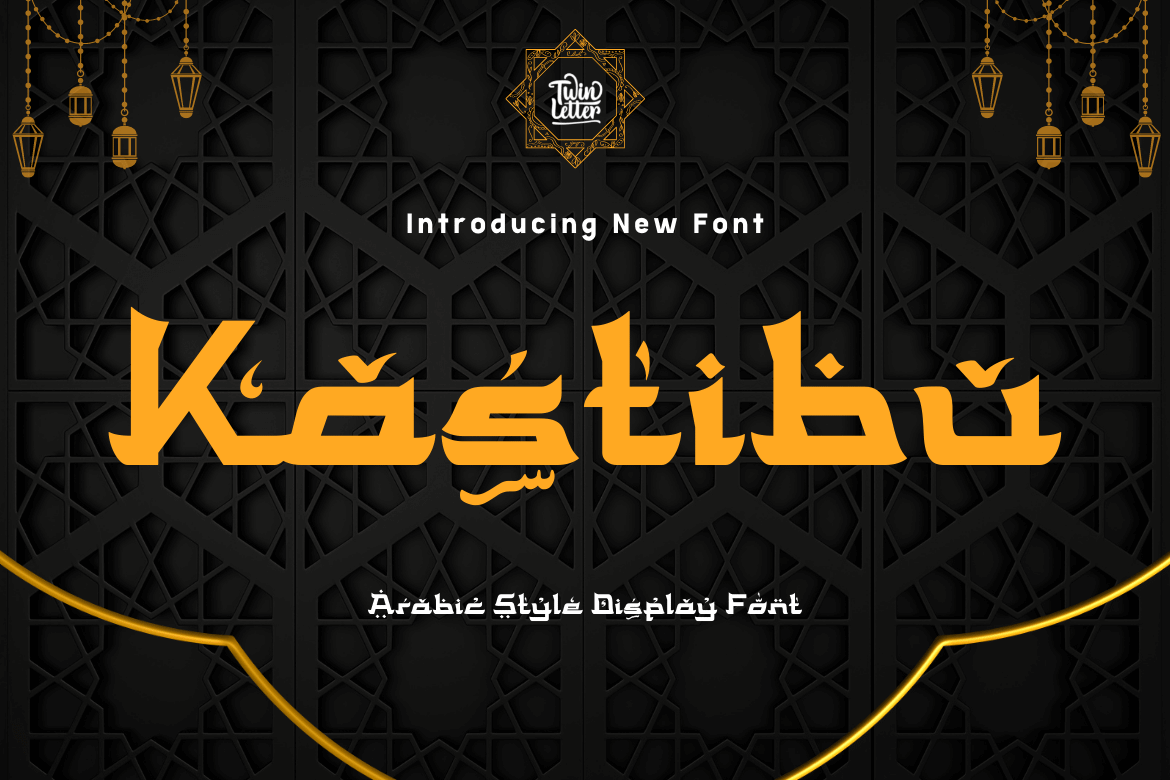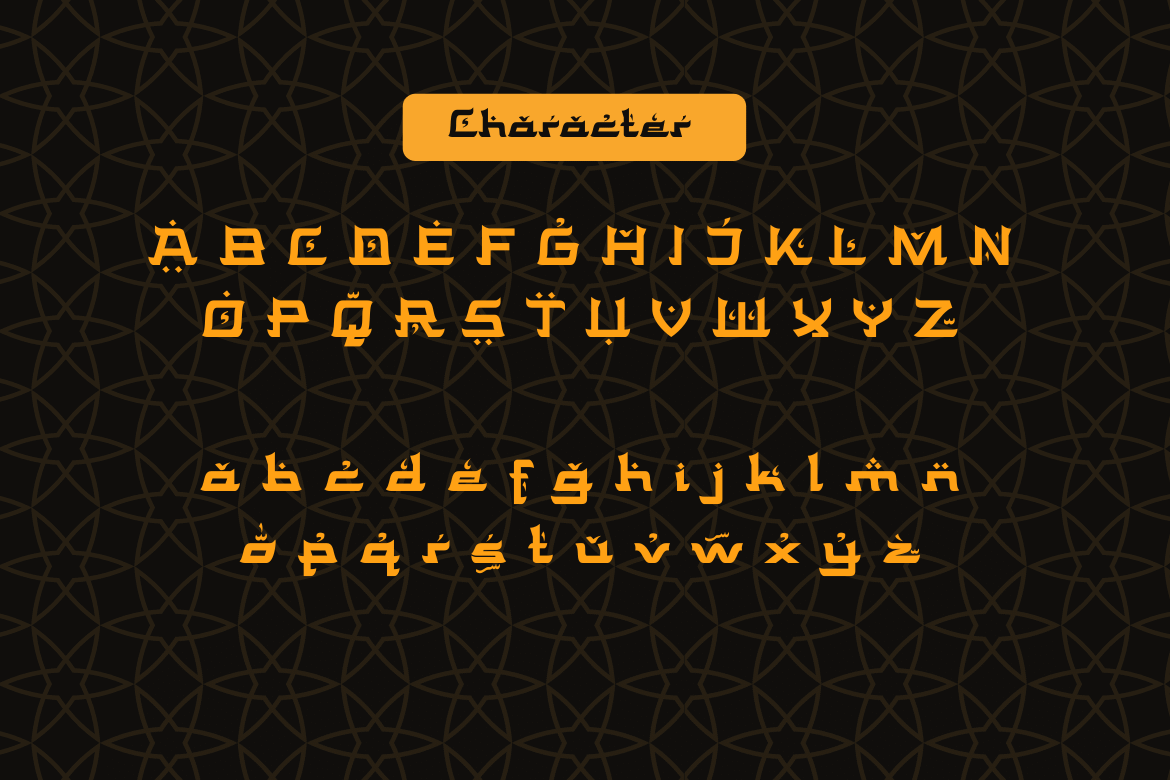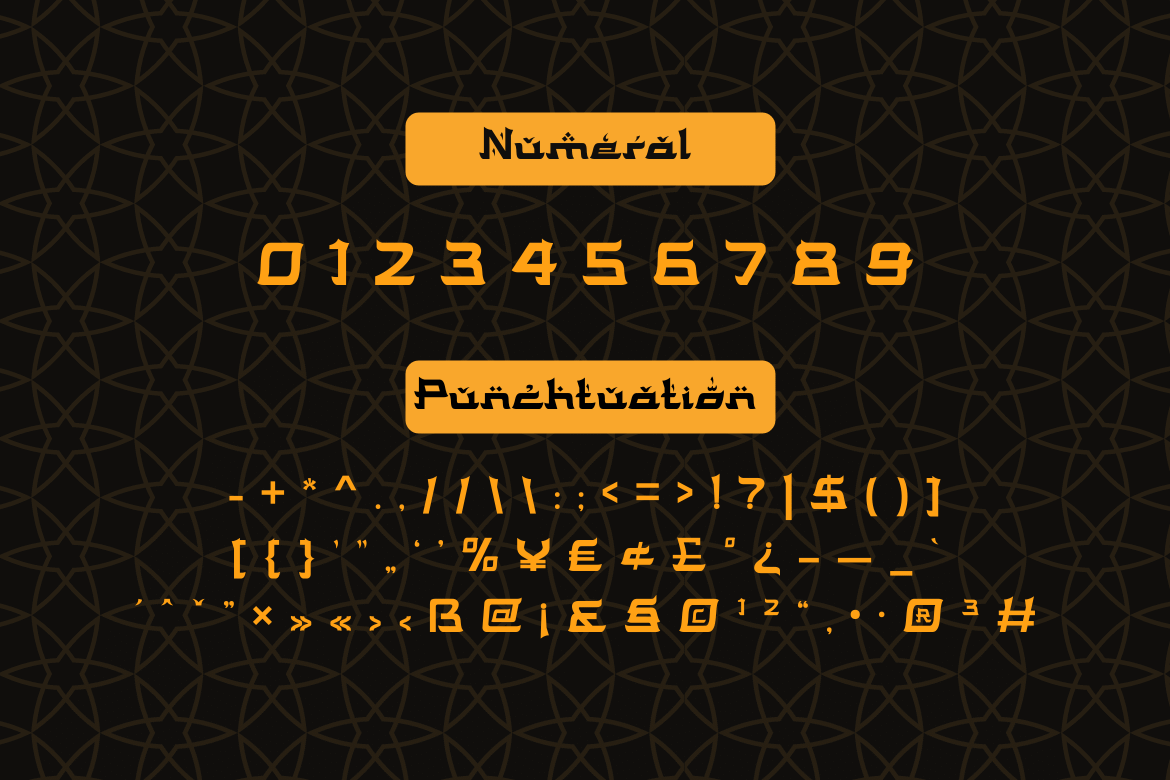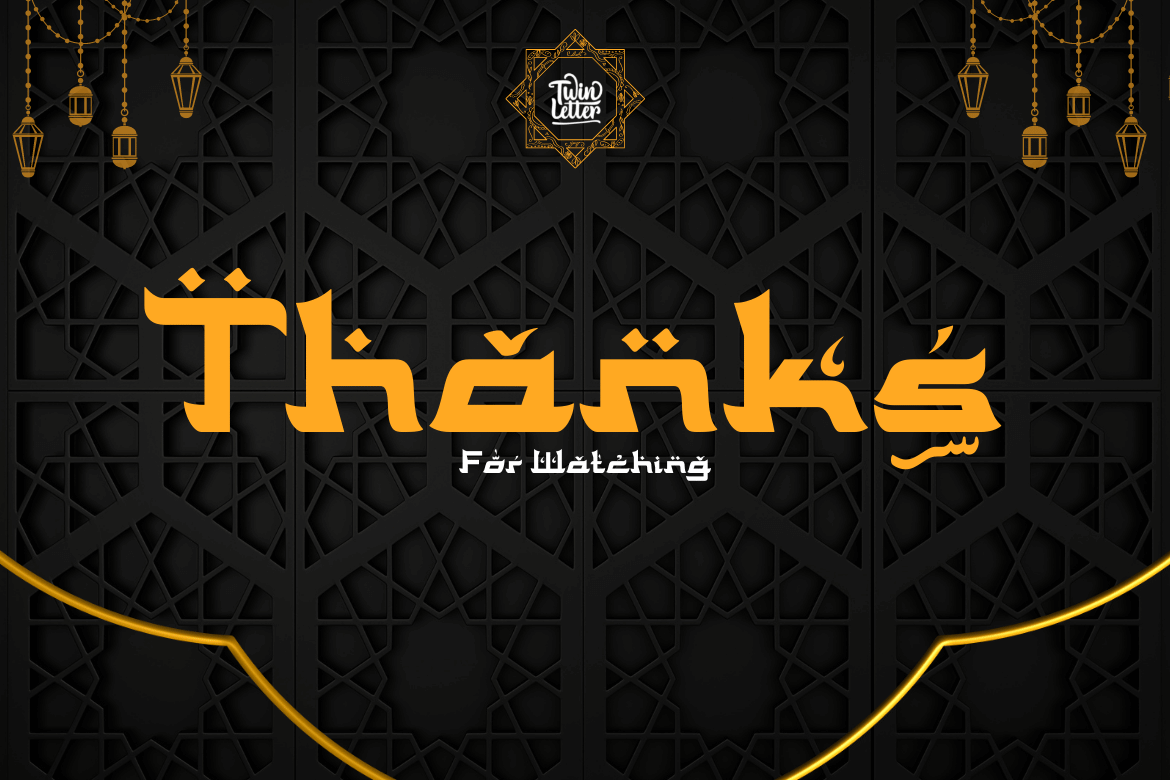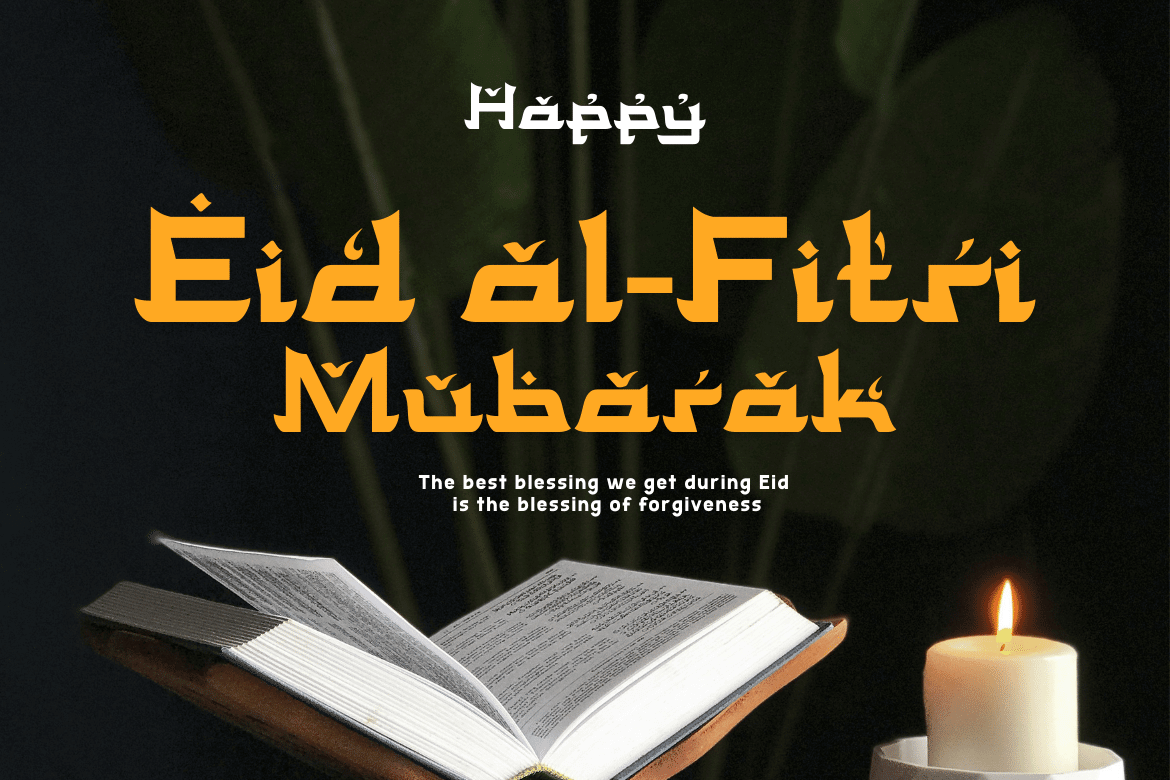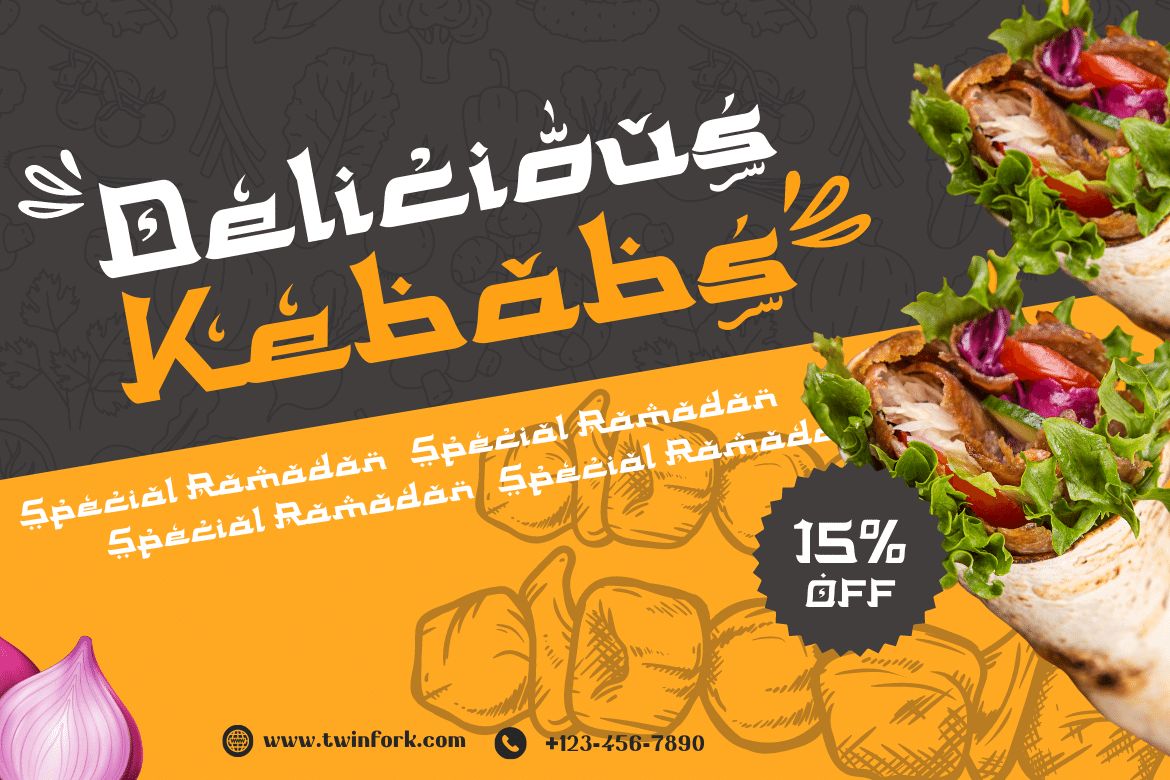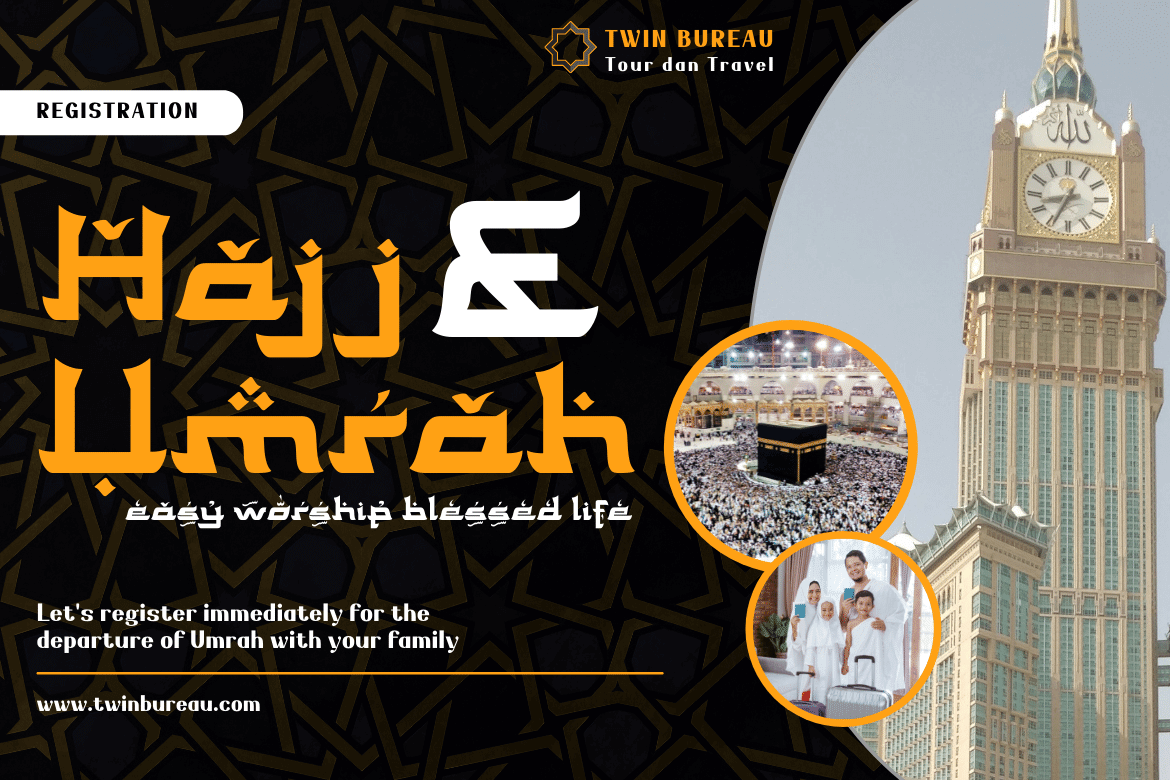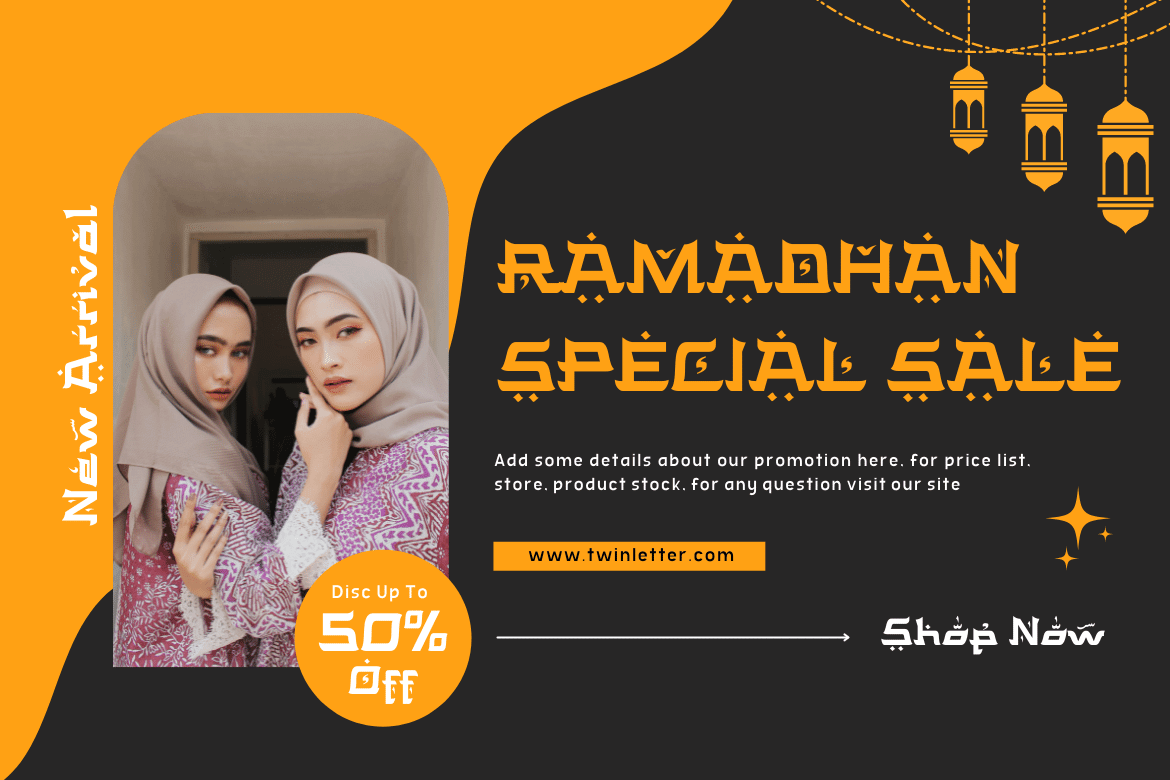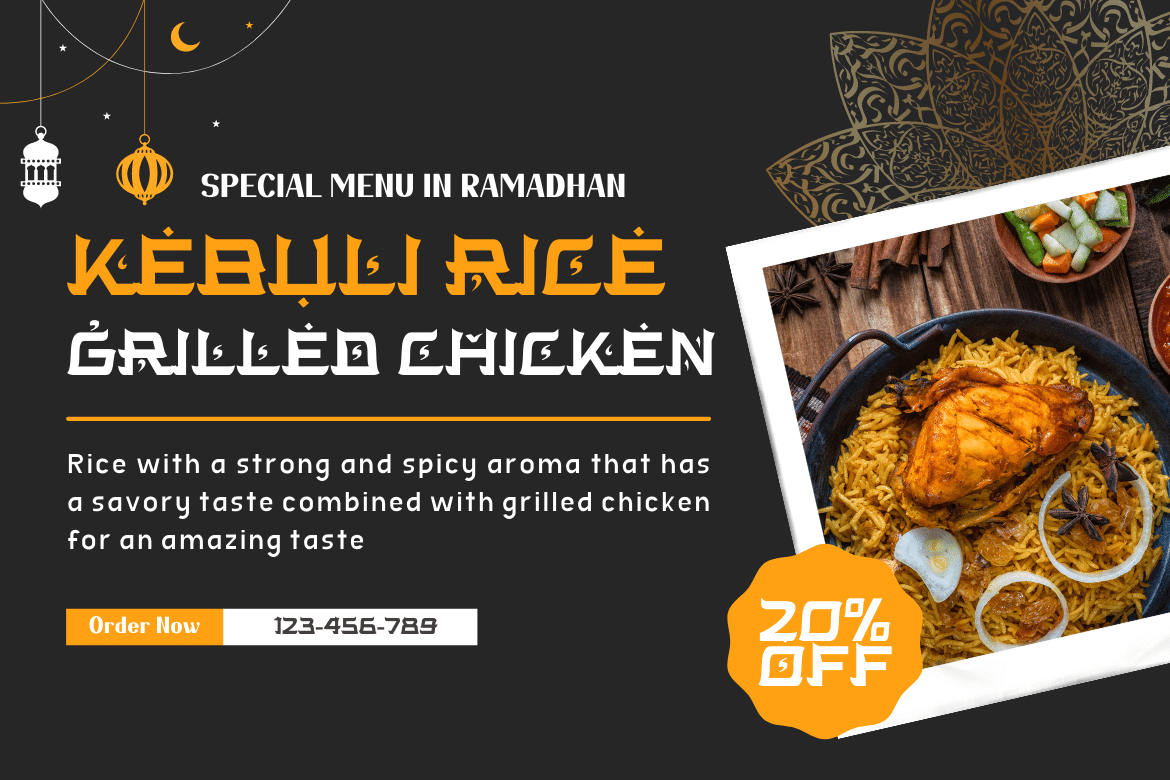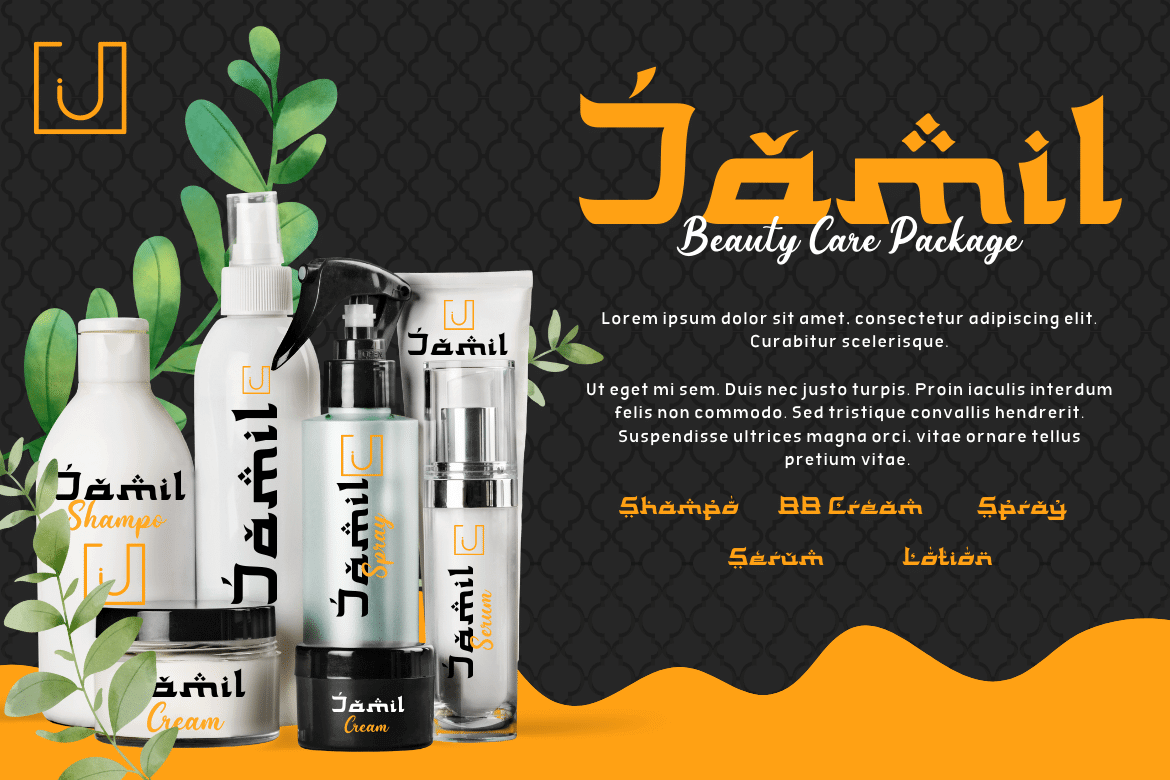
Kastibu
Kastibu is our newest font which has Arabic style.
Do you want to add an elegant Arabic touch to your designs? There’s no need to spend a fortune on an actual antique Arabic font. You can get the same look with a sample set of values, guaranteed to work in your design software, and give the results exactly as shown.